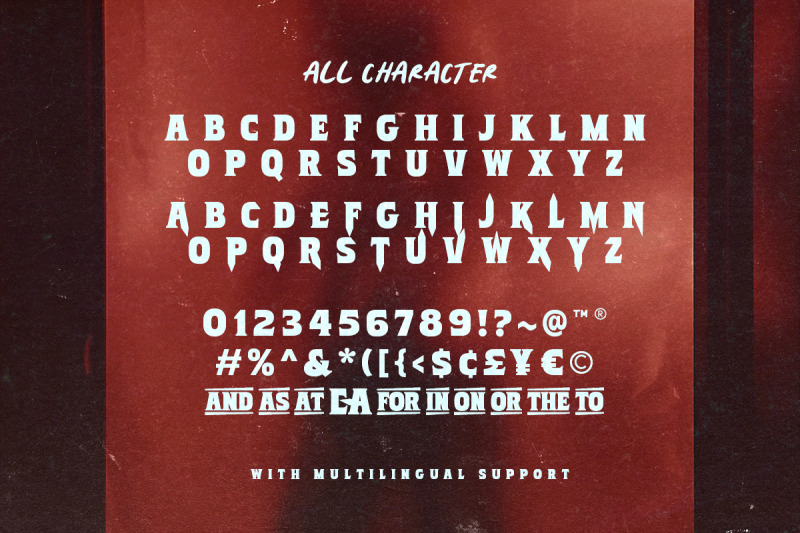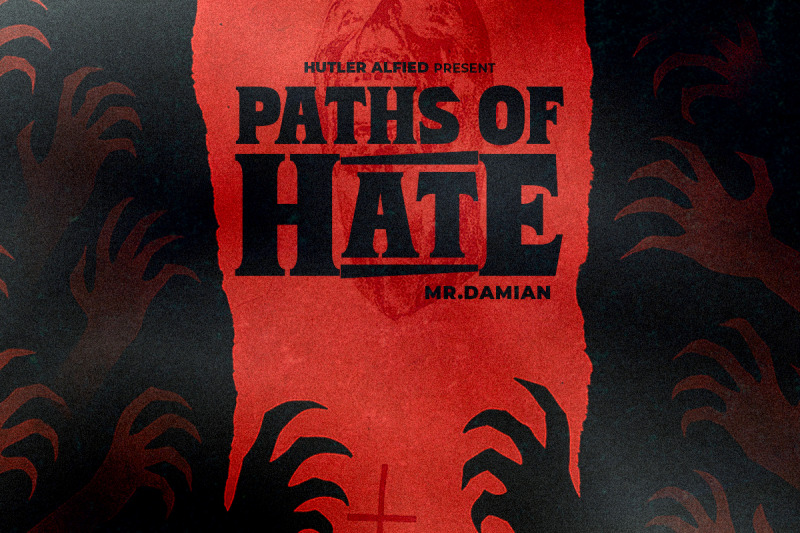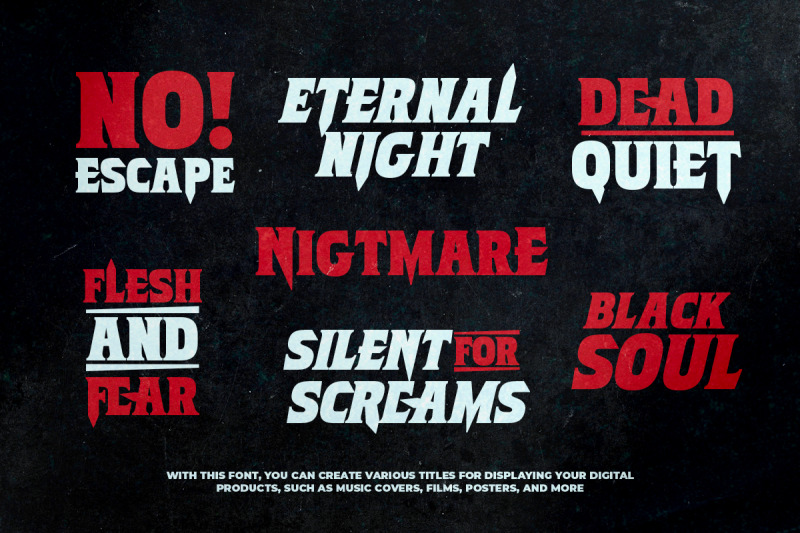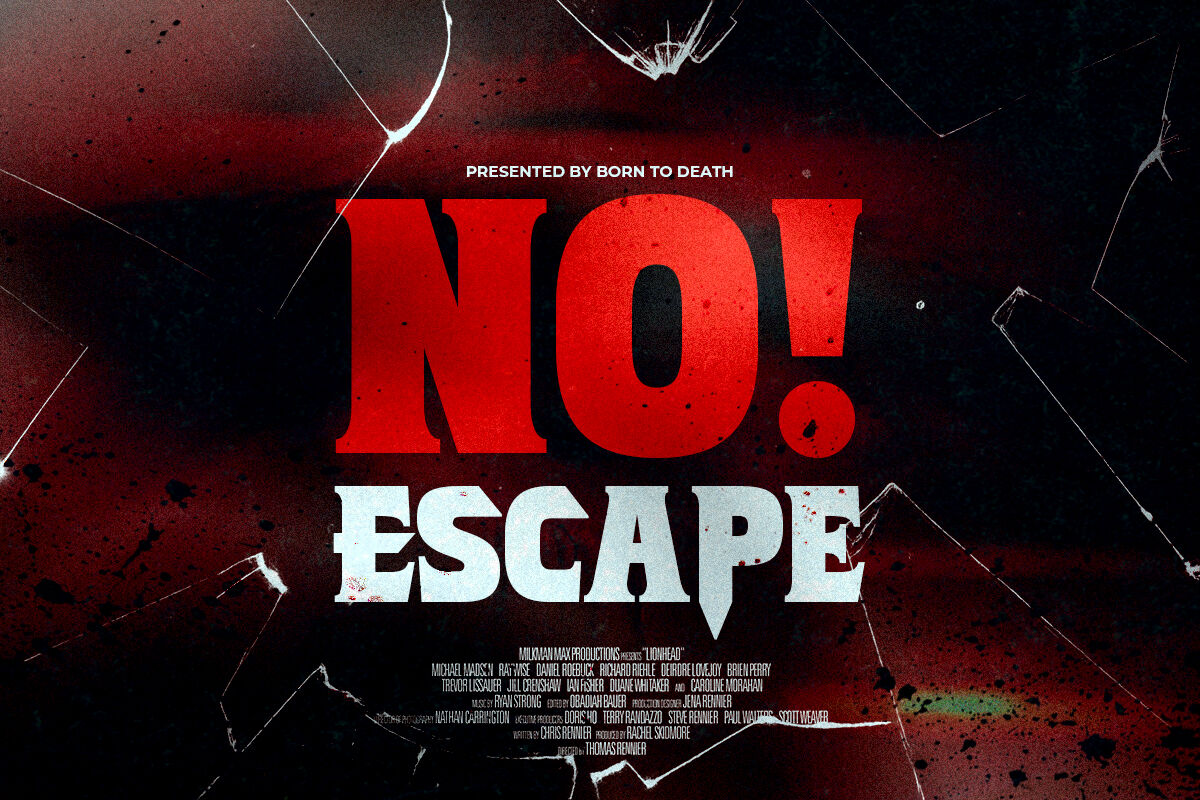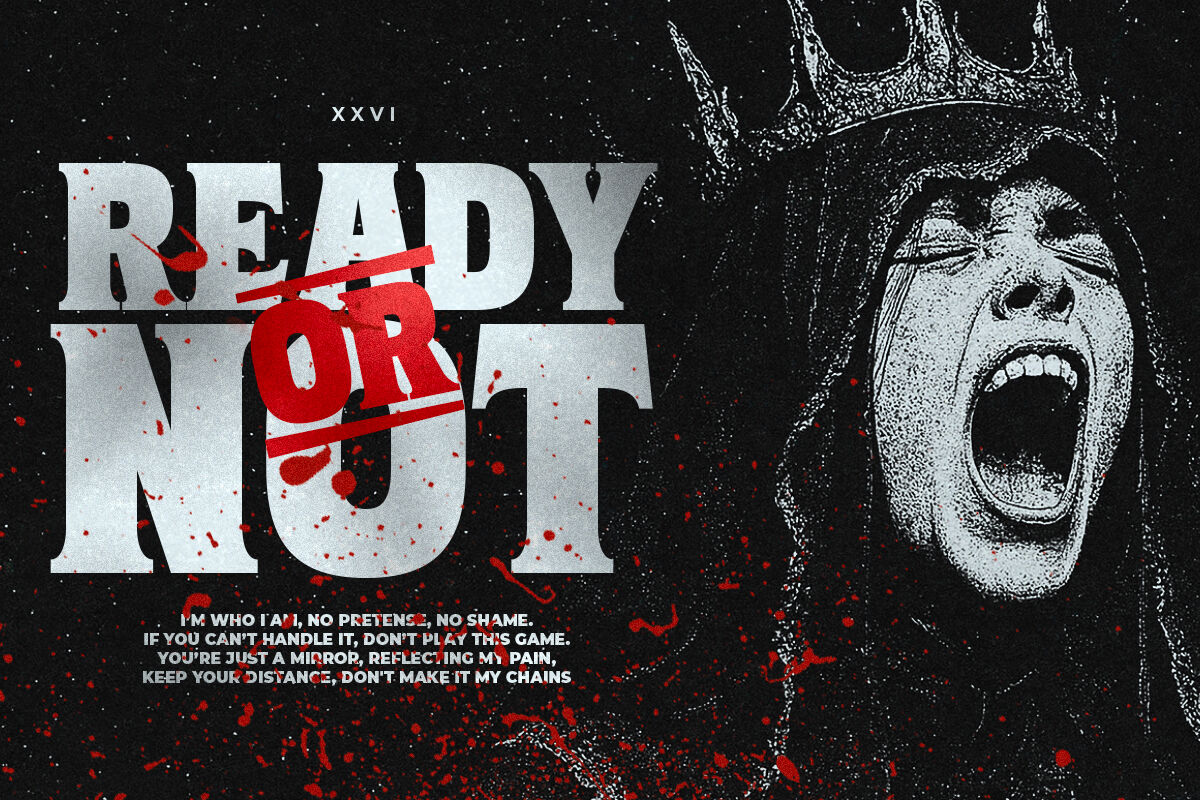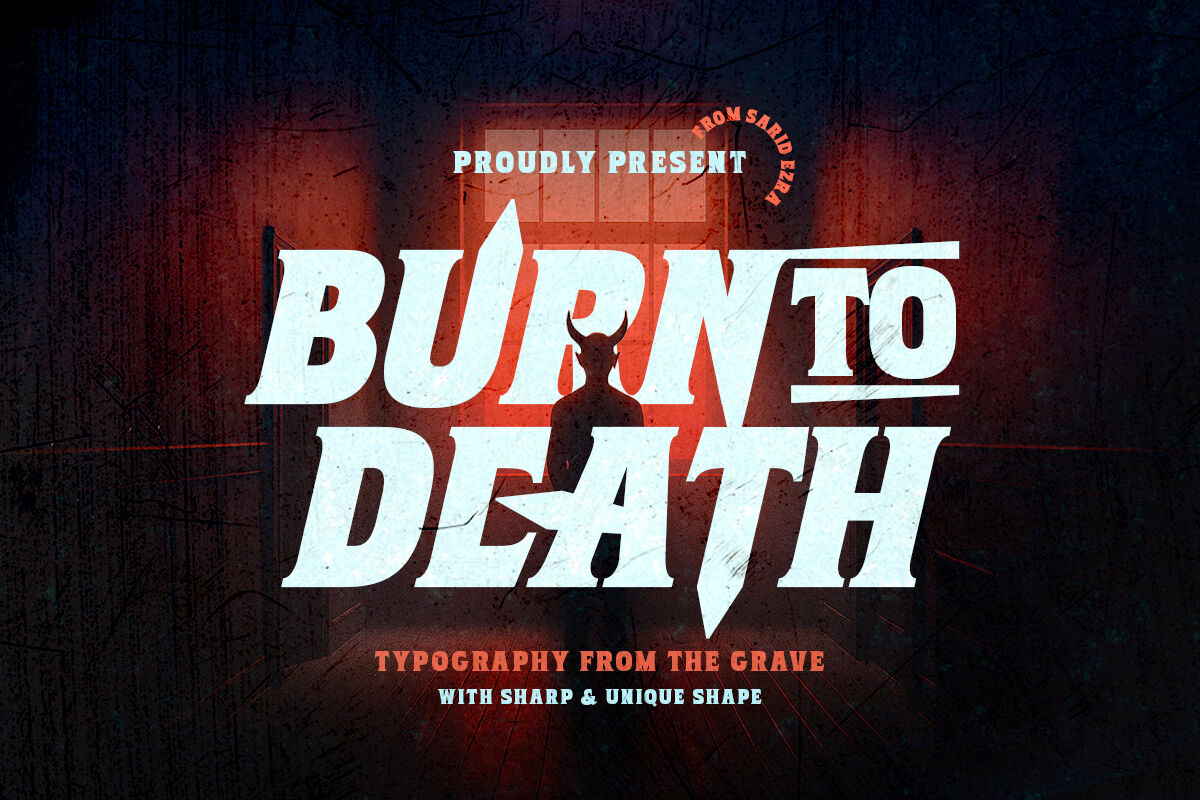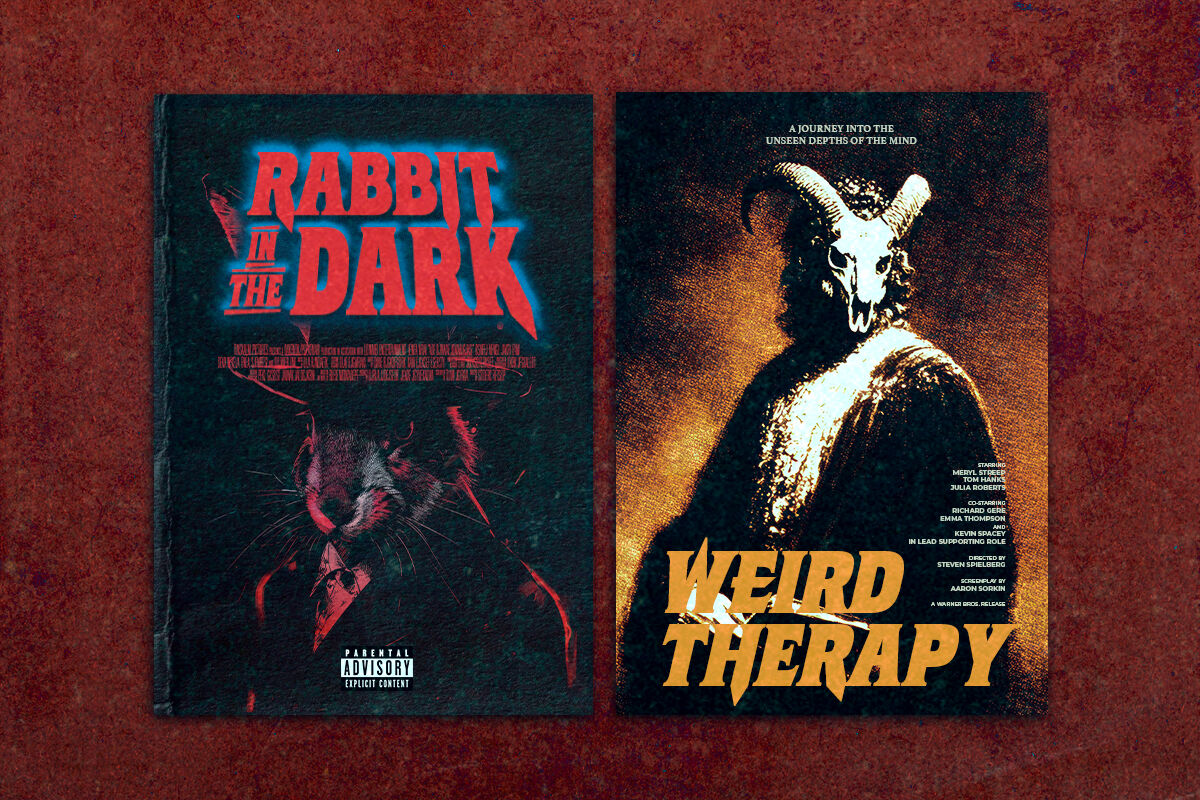
Burn to Death - Terrific Horror Font
Burn to Death is a horror serif font with sharp and bold looks that give a haunted, vintage, or gothic vibe. Perfect for creating chilling headlines, spooky invitations, horror movie posters, or Halloween-themed designs. Featuring classic serif uppercase letterforms and uniquely detailed lowercase letters that resemble knives, this font sets an ominous tone and captures the essence of the macabre. This font also comes with italic version and support multi language!